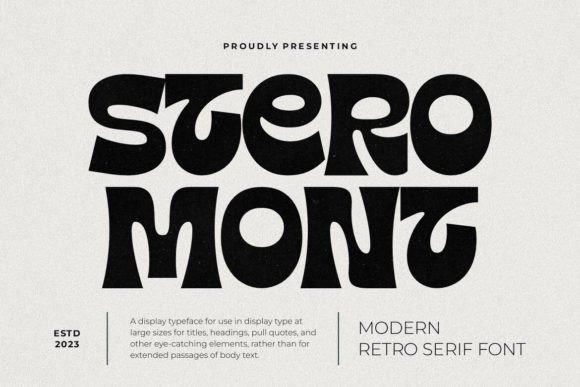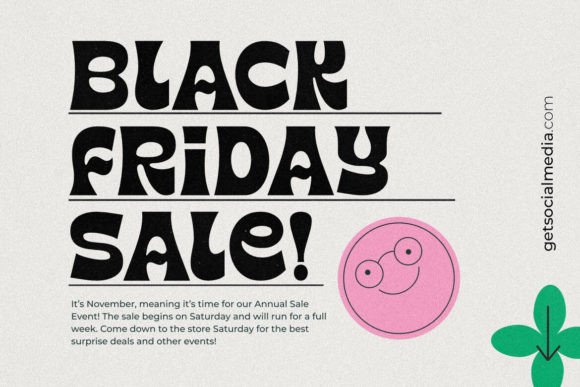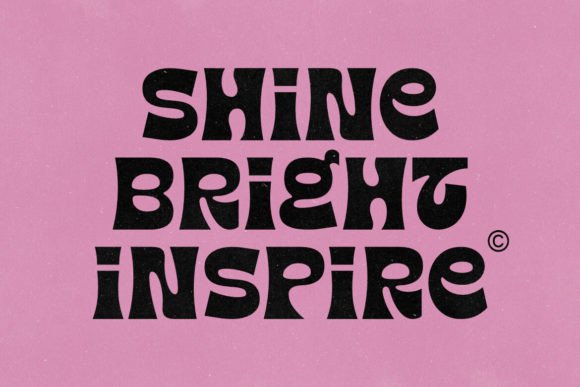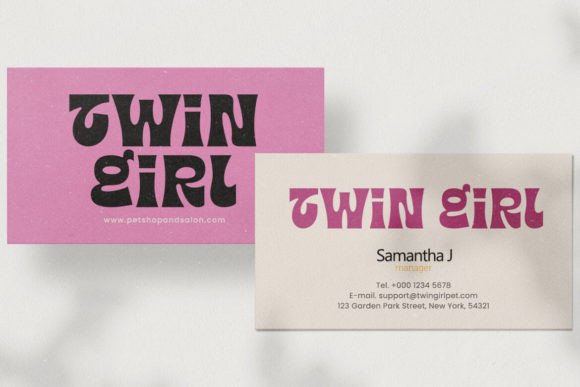
Stero Mont Font: Retro Serif Typography for Bold Headline Design
About the Stero Mont Font
The Stero Mont Font offers a perfect balance of form and function for your design needs. Stero Mont Font is a serif typeface with vintage and retro look!. Equipped with all complete characters ranging from all uppercase letters, numbers, punctuation marks and multi-lingual support, this font is ready to be used in any project. Very suitable for Logotype, Stickers, Packaging design, Cricut Project, Headlines, Brand identity, T shirt or Apparel industry, Posters, Magazines, Books, YouTube, Instagram, Websites, Canva, Corjl or any of your creative design projects.
Stero Mont Font Usage Examples
Stero Mont Font Example